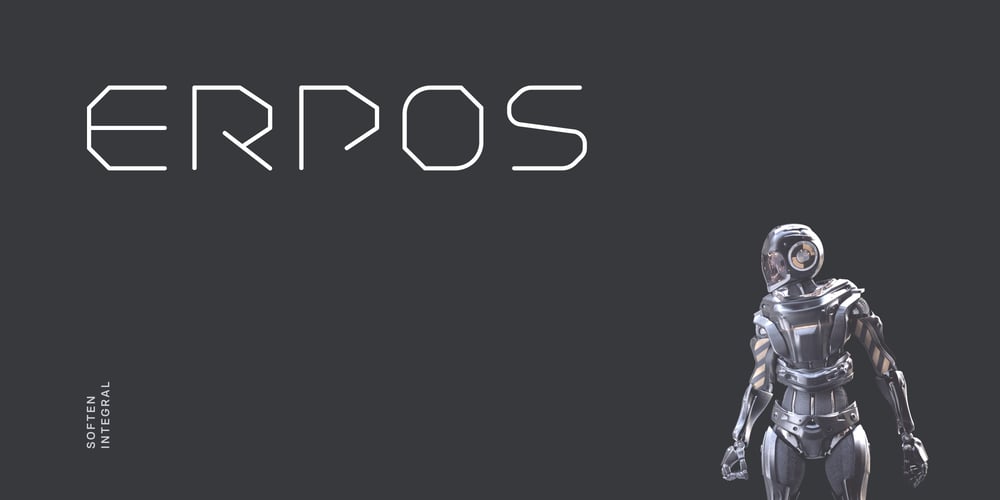
Erpos Font Family was designed by Andrew Seah and published by Baqoos. Erpos contains 4 styles and family package options. Erpos is a dynamic soften integral tech sans= apt for headline, editorial, branding, packaging, printed materials and typographic applications. 200+ glyphs with ligatures and fractions provided in opentype .otf and .woff format.